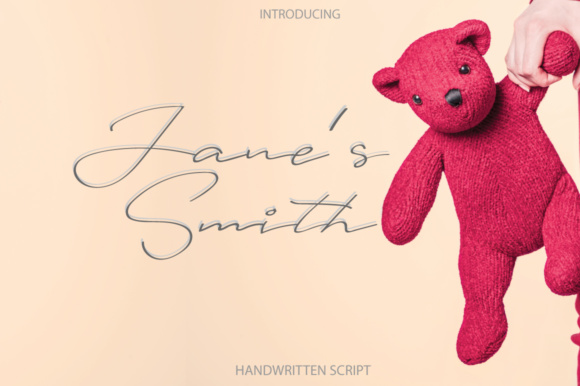
Janes Smith Font
Introducing the Janes Smith Font Family, the epitome of creative expression and typographic artistry. This remarkable script font, meticulously crafted by Studio_Art, invites you to elevate your designs beyond the ordinary. With its captivating letter variations, Janes Smith presents a rich tapestry of options that fuel unlimited creative possibilities.
Welcome to a world of elegant strokes and impeccable detailing. Janes Smith's graceful curves and enchanting swashes dance across your screen, evoking a symphony of visual harmony. Whether it's a heartfelt wedding invitation, an eye-catching logo, or a captivating book cover, Janes Smith effortlessly elevates the mundane into the extraordinary.
Immerse yourself in the boundless versatility of Janes Smith. Its inherent charm seamlessly adapts to any project, imbuing it with a distinct and memorable personality. From the intimate ambiance of blogs to the professional allure of corporate presentations, Janes Smith transforms words into art, captivating audiences with its timeless allure.
Unleash your imagination and discover the endless applications of Janes Smith. It's the perfect choice for branding projects, seeking to leave an indelible mark on customers' minds. With Janes Smith as your creative ally, your designs will radiate a sense of sophistication and unmatched elegance.